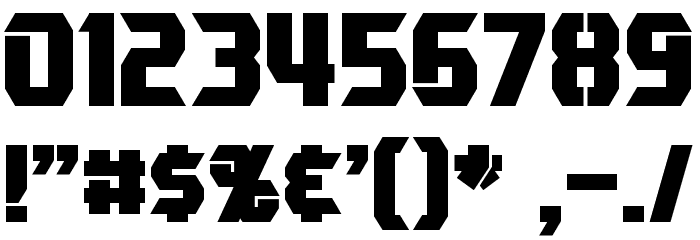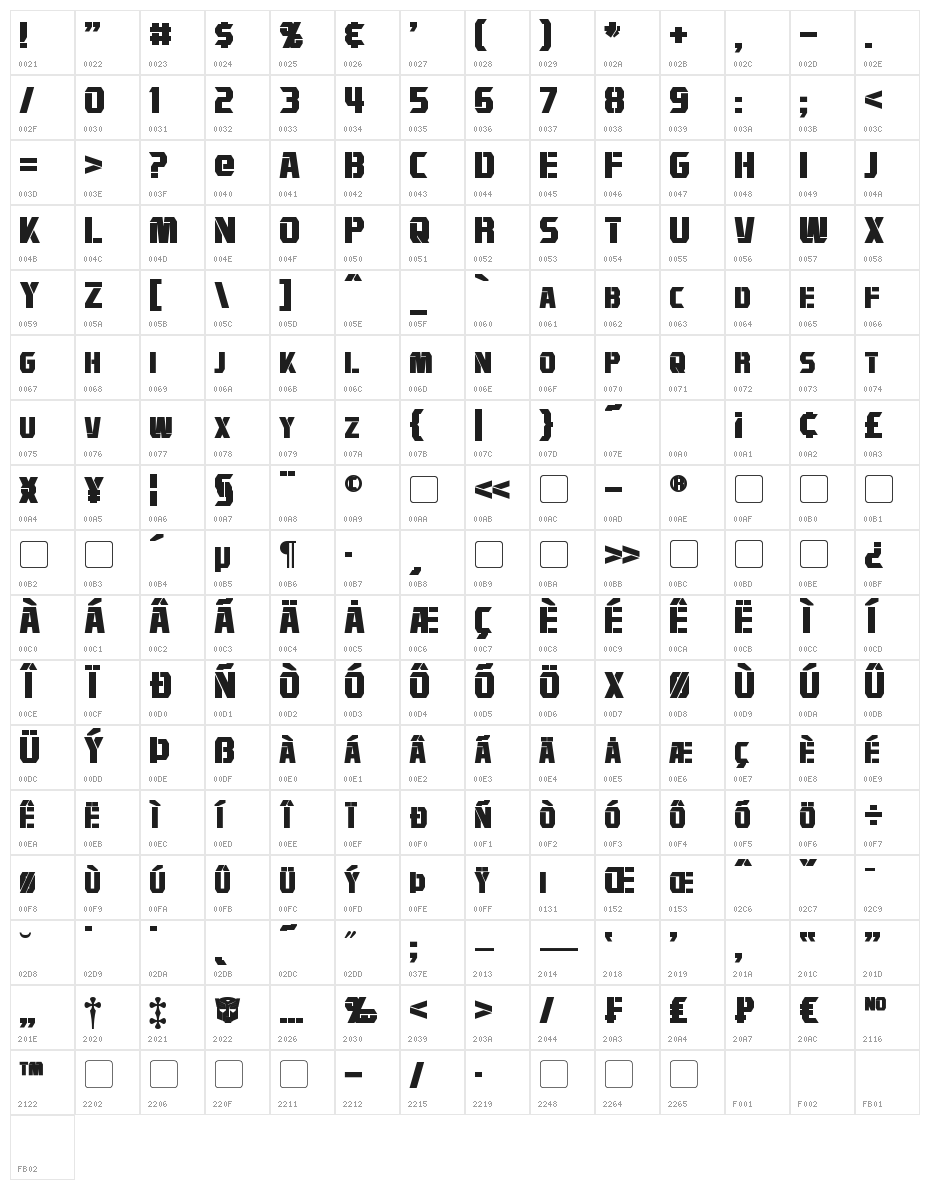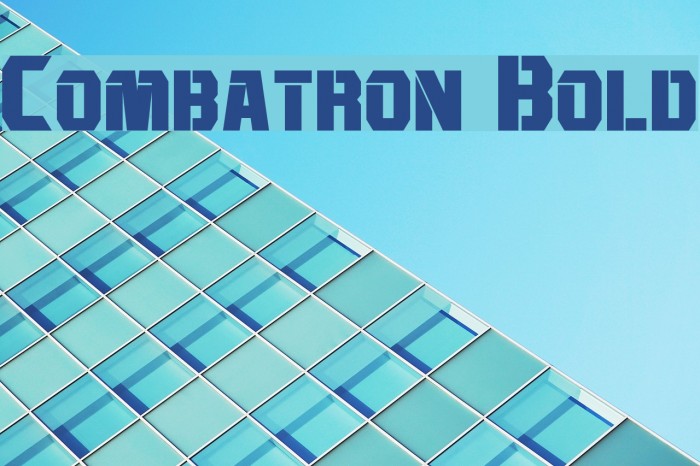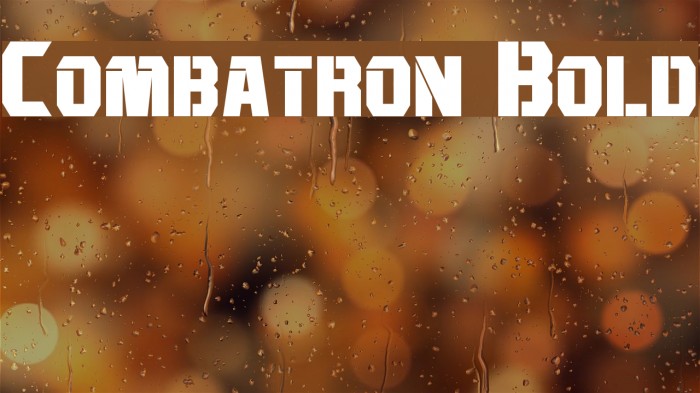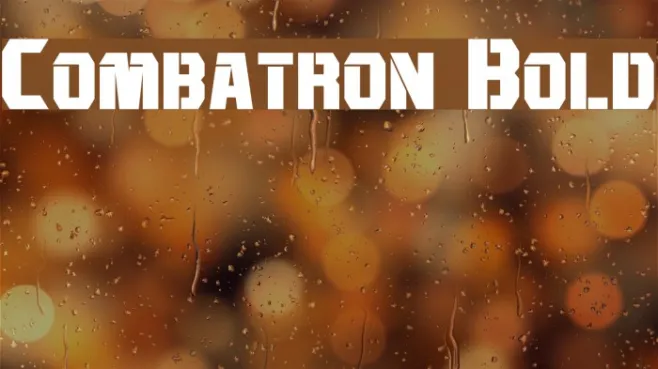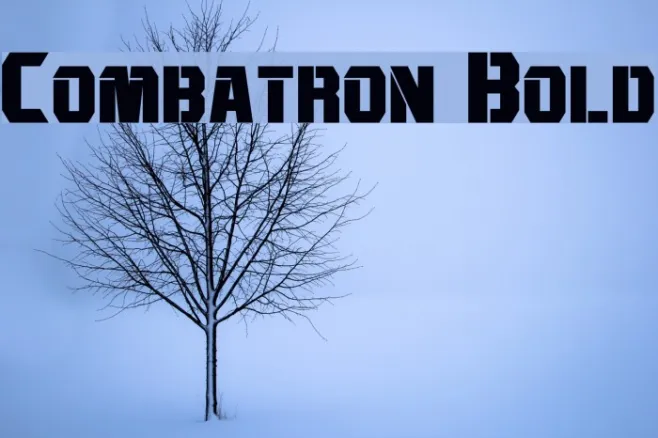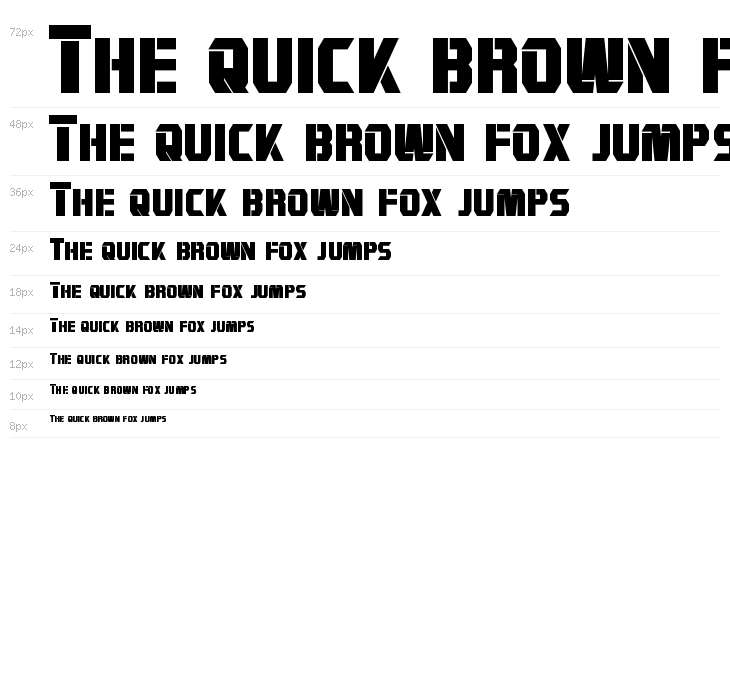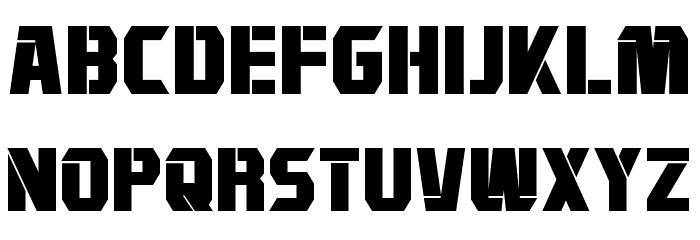
Combatron Bold Font
Combatron Bold Description
This bold, geometric font features a strong, angular design with a futuristic and industrial feel. The characters are constructed with sharp edges and a blocky appearance, giving it a commanding presence. The uppercase and lowercase letters maintain a consistent style, emphasizing uniformity and strength. The numerals and special characters follow the same design principles, ensuring cohesion across all elements. This font is ideal for projects that require a bold statement and a modern, tech-inspired aesthetic.
| Proposed Projects | Ideal for video game titles, tech branding, posters, and futuristic-themed designs. |